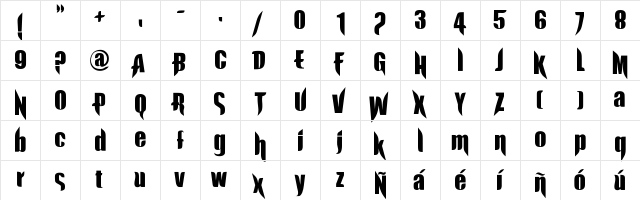
Exorsista -Jed@ Regular
Design Context for Exorsista -Jed@
Exorsista -Jed@ is a composed and adaptable typeface that performs quietly and consistently across a wide range of design contexts.